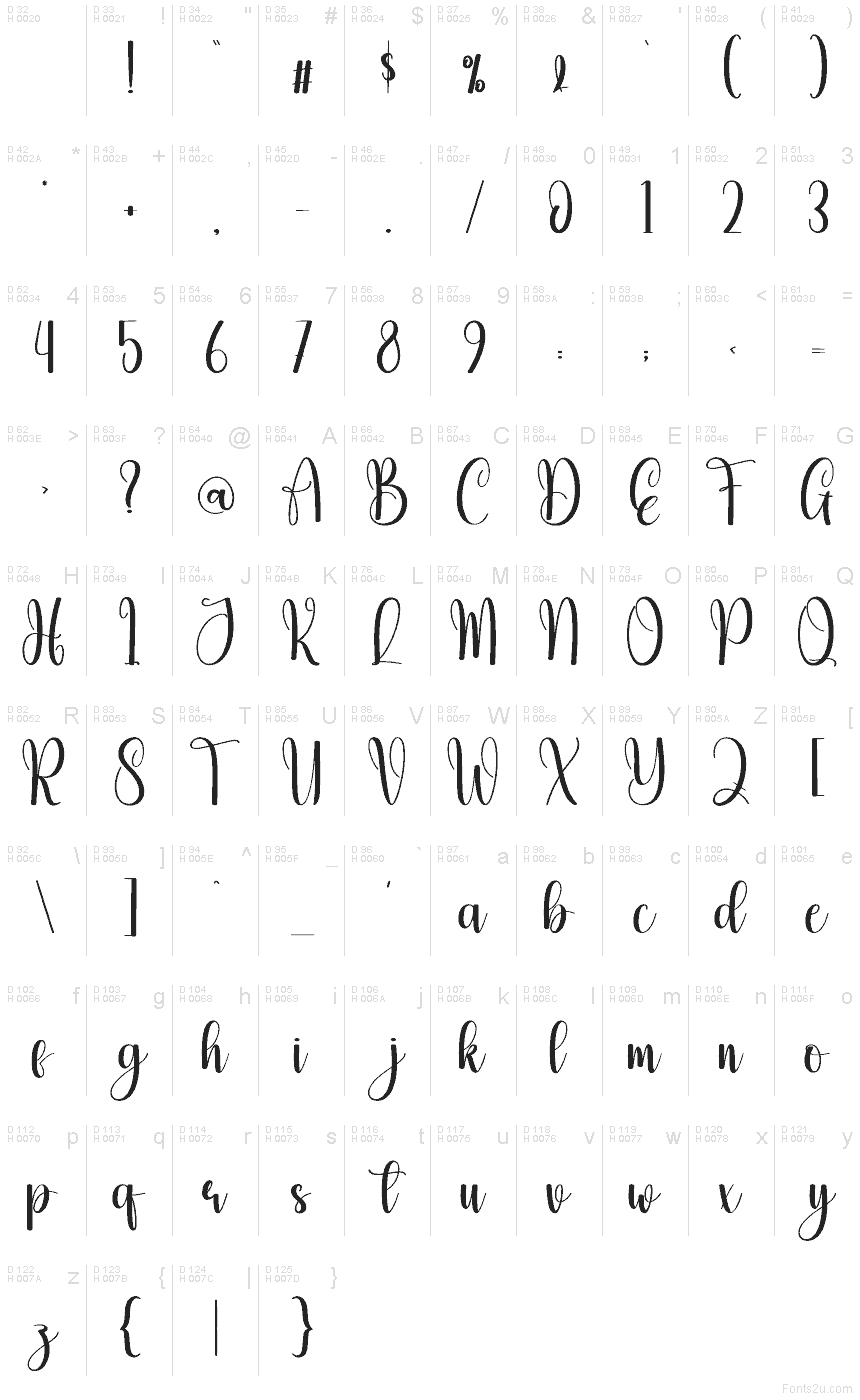
Rainsnow
Rainsnow font by Scratchones is a condensed handwritten typeface with an elegant, romantic, and flowing appearance. It carries a modern feel and expressive style with casual script characters that make each letter instantly appealing and friendly. This free handwriting font establishes a unique experience for the viewer in a wide variety of designs.
Similar to rain falling on snow, this modern display handwriting font works in harmony with readers’ vision for designs where elegance and readability are essential. Use it for magazines, branding projects, store logos, social media posts including Instagram or Facebook covers and stories.